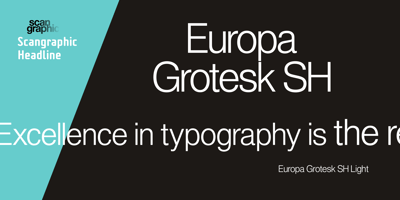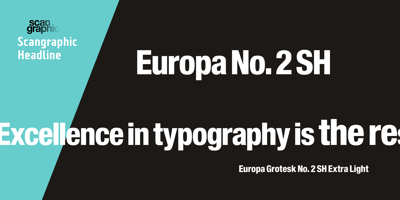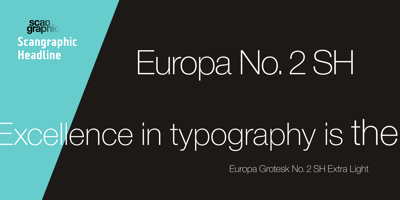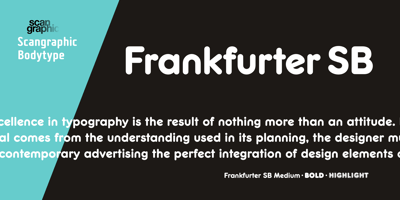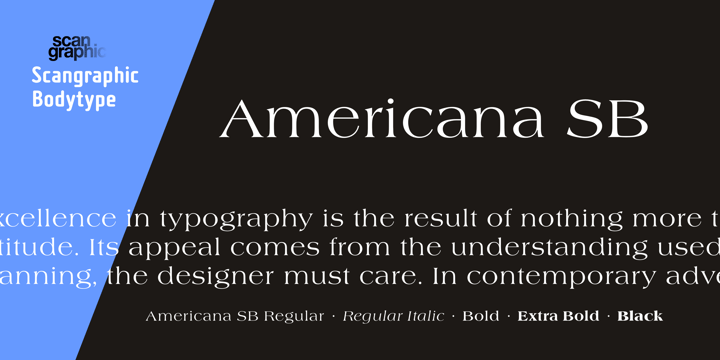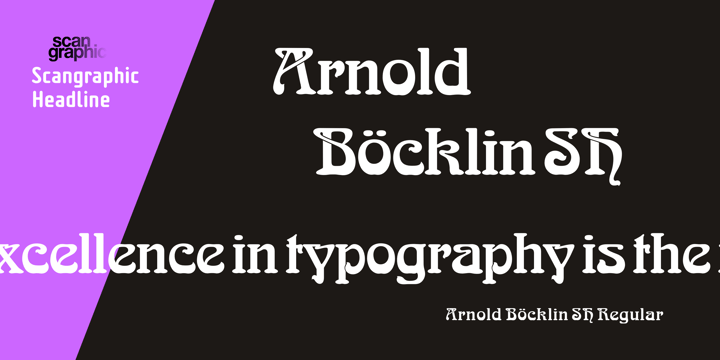
Scangraphic Digital Type Collection
In 1980, Scangraphic began developing its own font library, which by the end of that decade was large and well respected.
The Scangraphic Digital Type Collection currently consists of more than 1000 different typefaces, and includes well-known families such as Today Sans Serif designed by Volker Küster and Zapf Renaissance Antiqua by Hermann Zapf.
The exclusive feature of this collection is that for more than 60 per cent of the typefaces two special versions are available. One version is drawn, spaced and kerned for normal text use (SB - BodyType) the other for headlines (SH - SuperType).
Individually designed spacing for both versions is the most striking feature of Scangraphic BodyType and SuperType. The spacing of BodyTypes is optimized for text sizes. The spacing of SuperTypes is generally closer in order to meet the demands of compact headline setting. The kerning tables are based on the same principle. Apart from this there are subtle differences in design. To achieve a bright, sharp and crisp appearance in text sizes, all BodyTypes have minute inktraps drawn into the critical angles. BodyTypes may also have strengthened hairlines and serifs. In many cases the whole type design has been optimized to meet the optical requirements of text setting in small sizes. SuperTypes are also supplied with integrated umlauts as an alternative to the floating accents. They allow the compact setting of capital lines without the usual loss of quality. Scangraphic recommends 4.5 mm capital height (18 pt) as the largest size at which BodyTypes should be used, this should also be the smallest size for SuperType.
All text fonts in the Scangraphic Digital Type Collection are complete with individual € and @ symbols.